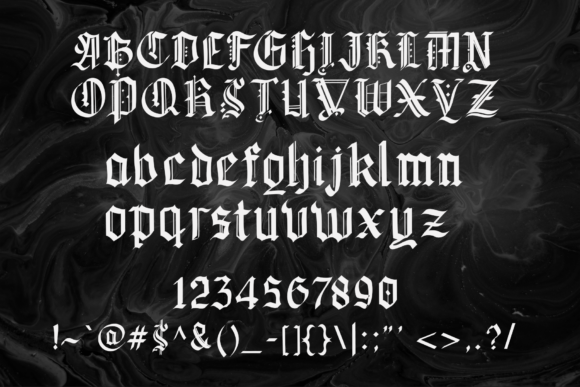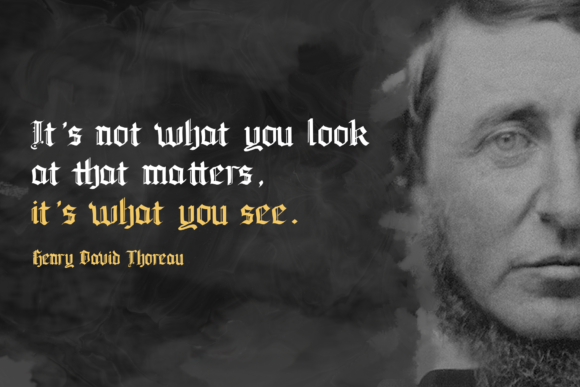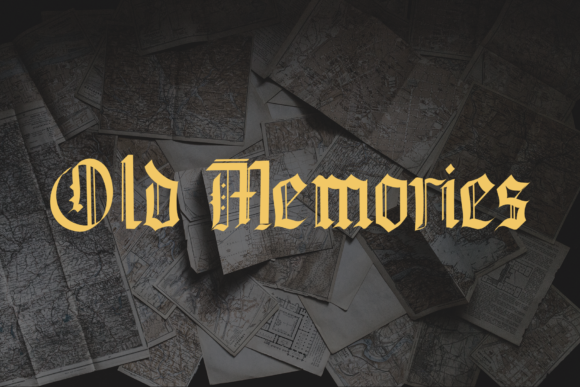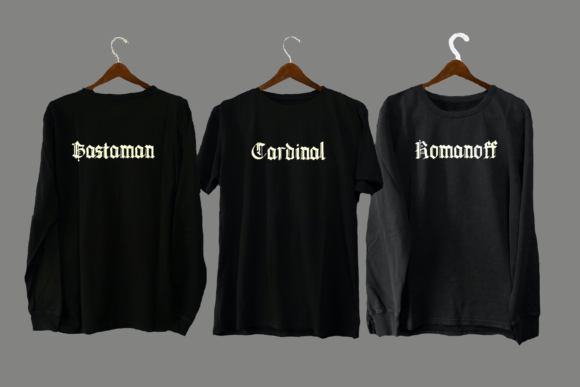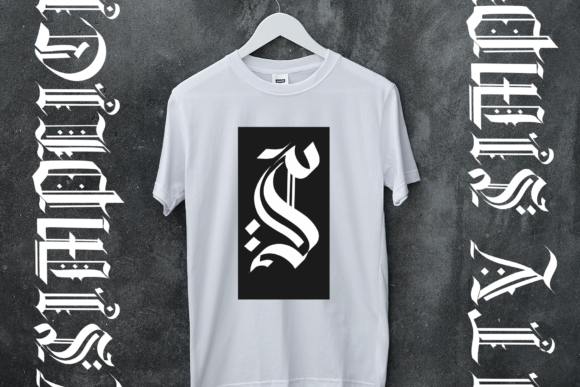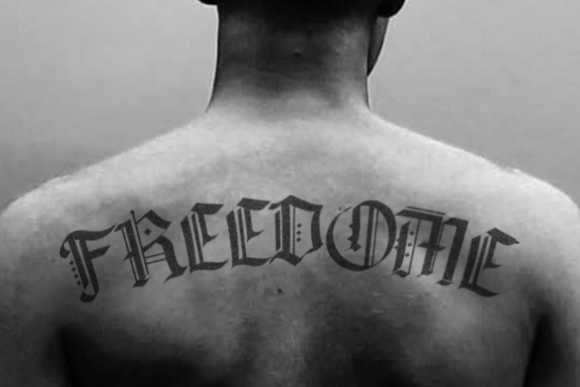
Introduction to Guyford Font
Guyford is an incredibly bold and cool looking blackletter font.
This font is ideal for writing legal documents, letters, or pretty much anything else that requires a distinct and assertive touch .